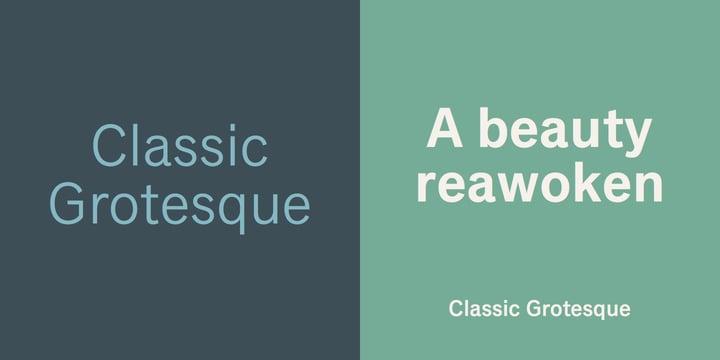
Classic Grotesque™
by Monotype
About Classic Grotesque Font Family
Classic Grotesque by Rod McDonald: a traditional font with a modern face. The growing popularity of grotesque typefaces meant that many new sans serif analogues were published in the early 20th century. Setting machines were not compatible with each other but all foundries wanted to offer up-to-date fonts, and as a result numerous different typeface families appeared that seem almost identical at first glance and yet go their separate ways with regard to details. One of the first fonts created with automatic typesetting in mind was Monotype Grotesque®. Although this typeface that was designed and published by Frank Hinman Pierpont in 1926 has since been digitalised, it has never achieved the status of other grotesque fonts of this period. But Monotype Grotesque was always one of designer Rod McDonald’s favourites, and he was overjoyed when he finally got the go-ahead from Monotype in 2008 to update this “hidden treasure”. The design process lasted four years, with regular interruptions due to the need to complete projects for other clients. In retrospect, McDonald admits that he had no idea at the beginning of just how challenging and complex a task it would be to create Classic Grotesque™. It took him considerable time before he found the right approach. In his initial drafts, he tried to develop Monotype Grotesque only to find that the result was almost identical with Arial®, a typeface that is also derived in many respects from Monotype Grotesque. It was only when he went back a stage, and incorporated elements of Bauer Font’s Venus™ and Ideal Grotesk by the Julius Klinkhardt foundry into the design process, that he found the way forward. Both these typefaces had served as the original inspiration for Monotype Grotesque. The name says it all: Classic Grotesque has all the attributes of the early grotesque fonts of the 20th century: The slightly artificial nature gives the characters a formal appearance. There are very few and only minor variations in line width. The tittles of the ‘i’ and ‘j’, the umlaut diacritic and other diacritic marks are rectangular. Interestingly, it is among the uppercase letters that certain variations from the standard pattern can be found, and it is these that enliven the typeface. Hence the horizontal bars of the “E”, “F” and “L” have bevelled terminals. The chamfered terminal of the bow of the “J” has a particular flamboyance, while the slightly curved descender of the “Q” provides for additional dynamism. The character alternatives available through the OpenType option provide the designer with a wealth of opportunities. These include a closed “a”, a double-counter “g” and an “e” in which the transverse bar deviates slightly from the horizontal. The seven different weights also extend the scope of uses of Classic Grotesque. These range from the delicate Light to the super thick Extrabold. There are genuine italic versions of each weight; these are not only slightly narrower than their counterparts, but also have variant shapes. The “a” is closed, the “f” has a semi-descender while the “e” is rounded. Its neutral appearance and excellent features mean that Classic Grotesque is suitable for use in nearly all imaginable applications. Even during the design phase, McDonald used his new font to set books and in promotional projects. However, he would be pleased to learn of possible applications that he himself has not yet considered. Classic Grotesque, which has its own individual character despite its neutral and restrained appearance, is the ideal partner for your print and web project.
Designers: Rod McDonald
Publisher: Monotype
Foundry: Monotype
Design Owner: Monotype